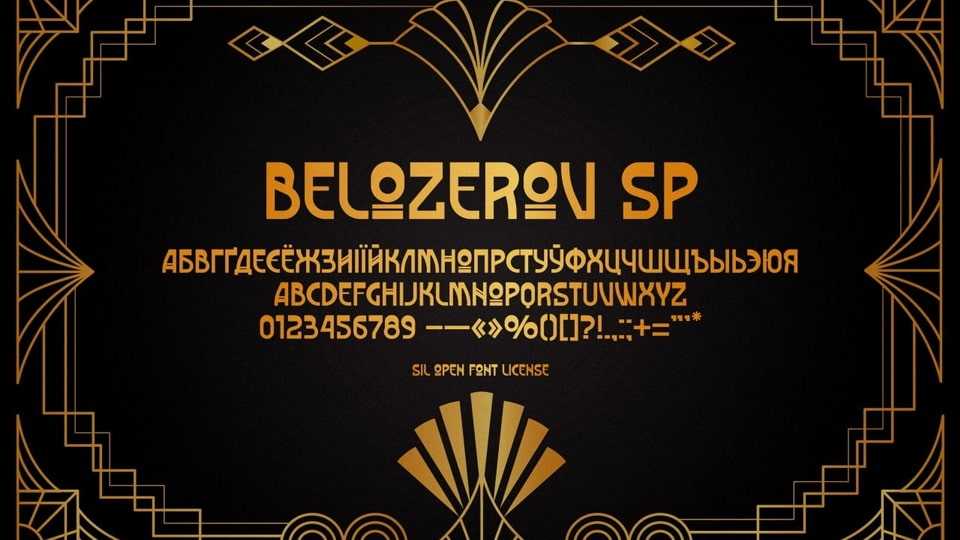
Download Belozerov SP font, a display typeface inspired by the logo of the newspaper “Pravda” from Gennady Belozerov’s “Glasnost” poster of 1988 and the style of similar fonts, in particular Rennie Mackintosh, Strong Glasgow, Rivanna, etc.